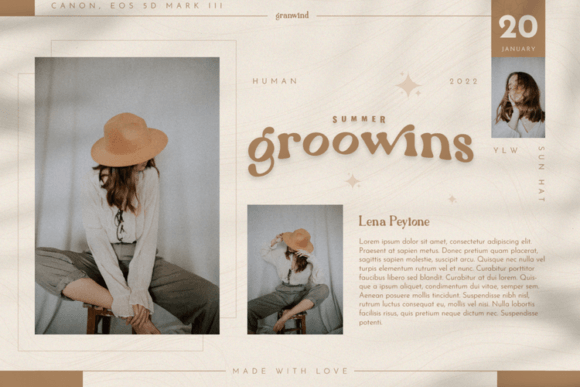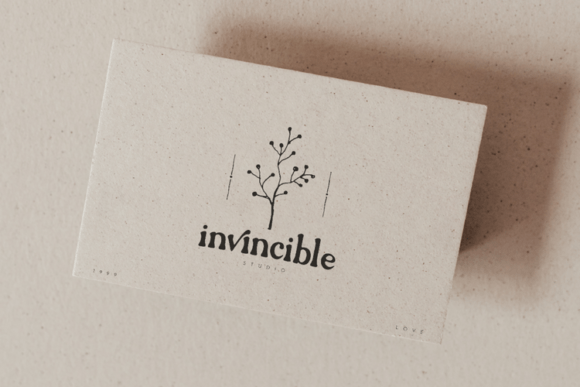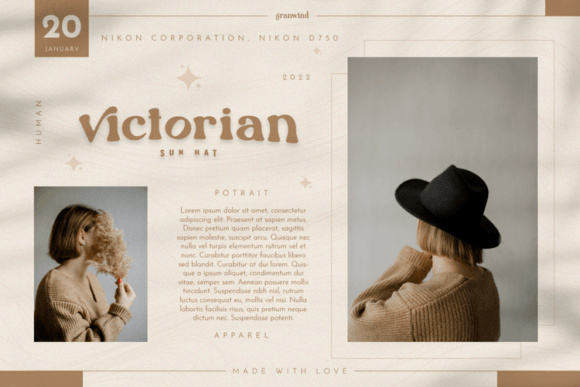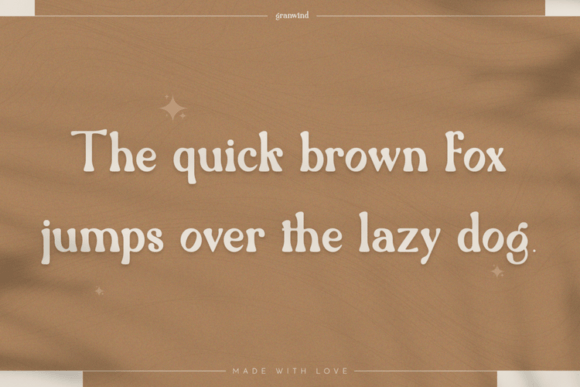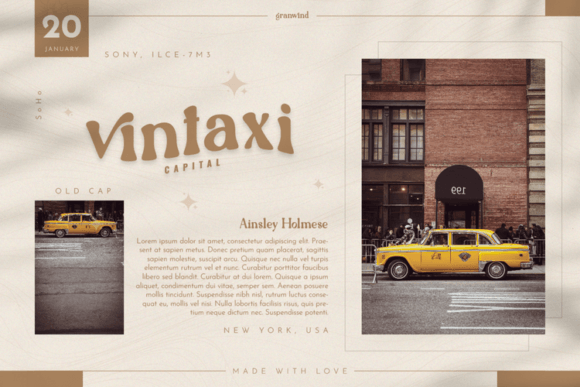
Introducing Granwind Font: Elevate Your Designs with Elegance and Sophistication
In the world of typography, fonts play a crucial role in conveying the tone and personality of a brand or design. For designers and crafters seeking a typeface that exudes elegance, sophistication, and a touch of nostalgia, Granwind Font is an exceptional choice. This retro and elegant serif font is designed to add a classy and stylish look to various design projects, making it an ideal selection for logos, branding, invitations, stationery, wedding designs, social media posts, and more.
What Makes Granwind Font Stand Out?
Granwind Font boasts a unique blend of retro charm and modern sophistication, setting it apart from other serif fonts. Its distinctive features include:
- Classic Serif Design: Granwind’s serif design is reminiscent of traditional printing methods, evoking a sense of nostalgia and timelessness.
- Elegant and Refined: The font’s refined lines and curves create an air of sophistication, perfect for high-end branding and luxury designs.
- Versatile: Granwind Font is suitable for a wide range of design applications, from digital media to print materials.
Use Cases for Granwind Font
Granwind Font’s versatility makes it an excellent choice for various design projects, including:
- Logos and Branding: Create a lasting impression with a logo that exudes elegance and sophistication.
- Invitations and Stationery: Add a touch of luxury to your invitations, business cards, and letterheads.
- Wedding Designs: Make your wedding designs, such as invitations, programs, and place cards, truly unforgettable.
- Social Media Posts: Elevate your social media presence with stylish and engaging posts.
Granwind Font offers numerous benefits for designers and crafters, including:
- Easy to Read: The font’s clear and legible design ensures that your message is conveyed effectively.
- Highly Customizable: Experiment with different font sizes, colors, and styles to create a unique look.
- Time-Saving: Granwind Font’s versatility saves you time and effort in finding the perfect typeface for your project.
Tips for Using Granwind Font Effectively
To get the most out of Granwind Font, consider the following tips:
- Pair with Other Fonts: Combine Granwind Font with complementary fonts to create a visually appealing contrast.
- Experiment with Colors: Try different color schemes to find the perfect match for your design.
- Pay Attention to Spacing: Adjust the font spacing to ensure optimal readability and aesthetics.
Granwind Font is a versatile and elegant serif font that can elevate your designs to new heights. Its unique blend of retro charm and modern sophistication makes it an excellent choice for designers and crafters seeking to add a touch of luxury and sophistication to their projects. With its wide range of use cases, benefits, and tips for effective use, Granwind Font is sure to become a staple in your design toolkit.